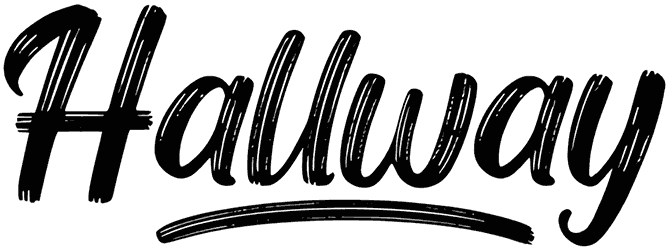
Ordinary Man Font
If you are looking for an outstanding brush font that has a natural hand-drawn feel, you are in the best place! Ordinary Man offers smart handwriting characters that are slim; utilize them, and create a cursive typography. This modern brush font is very artistic and has a friendly feel.
The remarkable letterforms give your design a creative look, they don’t include numbers or any punctuations. Ordinary Man is very classy and brilliant for headlines, logos, magazines, fashions, weddings, and more.